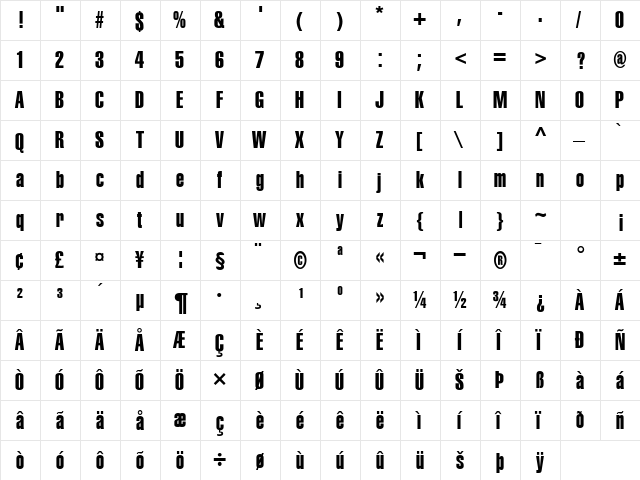
CorporateCompressedExtra Regular Font Preview
CorporateCompressedExtra Regular
Design Context for CorporateCompressedExtra Typeface
CorporateCompressedExtra is a composed and adaptable typeface that performs quietly and consistently across a wide range of design contexts.